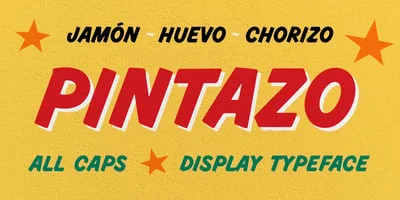
Pintazo Font
Pintazo Font excels in various creative applications including sports branding, energy drink packaging, gaming logos, fitness apparel, concert posters, extreme sports graphics, automotive designs, street art projects, urban fashion labels, and dynamic social media campaigns. This energetic typeface brings intensity and movement to any design project.
What makes Pintazo Font truly exciting is its dynamic energy and commanding presence. The font features strong, angular letterforms with distinctive character shapes that convey power and motion. Its bold personality and modern edge make it perfect for brands targeting active, youth-oriented demographics who value authenticity and high-impact visual communication.
The Pintazo Font family typically includes multiple weights and styles such as Regular, Bold, Black, Condensed, and potentially Outline versions. These variations provide designers with versatile options to create striking visual hierarchies and impactful layouts that demand attention and communicate with authority.
Whether you're designing athletic branding, creating action-packed advertisements, or developing youth-focused campaigns, Pintazo Font offers the dynamic quality and visual strength that modern projects require. Its exceptional character and contemporary appeal make it an invaluable resource for designers seeking to create memorable, high-energy designs that connect with active audiences.